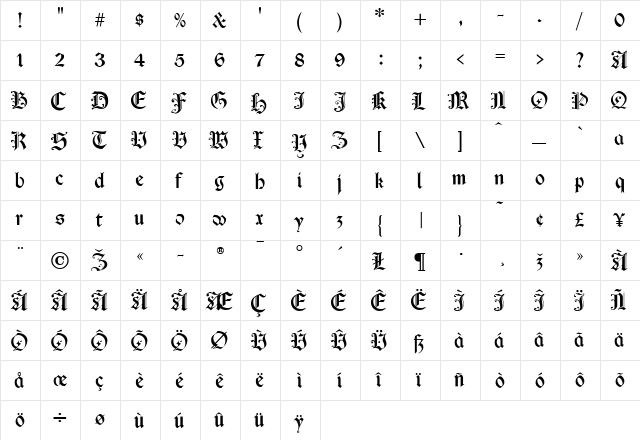
Cimbrian Regular
| Foundry | Digitized by Dan X. Solo. Software \ by Dover Publications, Inc |
Design Context for Cimbrian Typeface
Cimbrian is a composed and adaptable typeface that performs quietly and consistently across a wide range of design contexts.